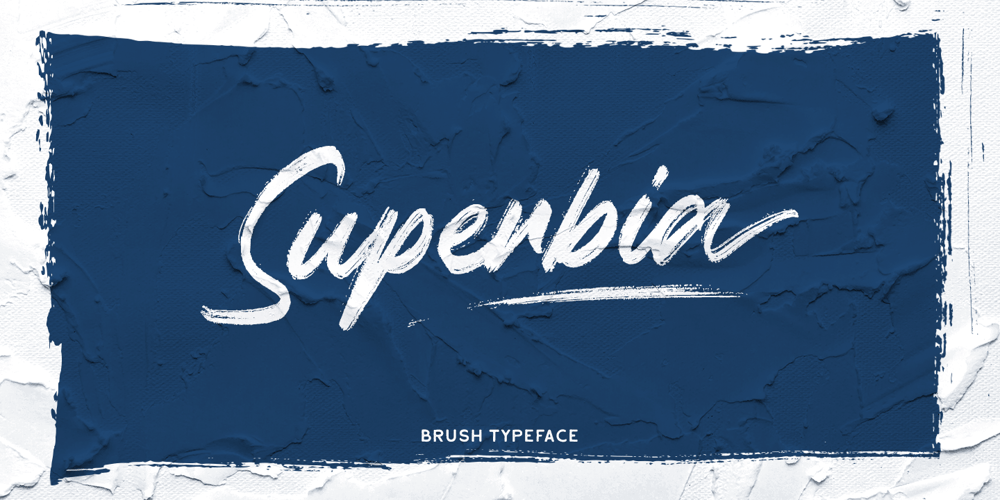
Superbia Font Family was designed by Gustian Agung Asprilla and published by Rillatype. Superbia contains 1 styles and family package options. Superbia is a textured brush font! The natural hand writing script is suitable for you who needs a typeface for headline, logotype, apparel, branding, packaging, advertising and more. This typeface is comes with uppercase, lowercase, punctuation, symbols, numerals, stylistic set alternates as well as multi-lingual support. It is PUA Encoded.